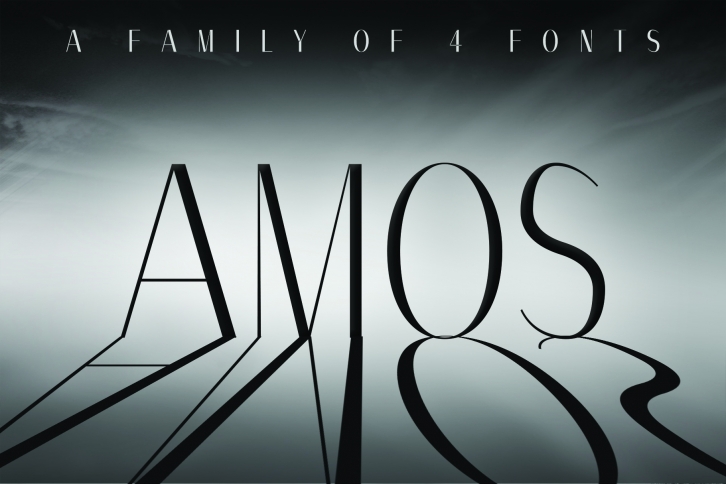
AMOS, A Modern Sans Serif is a beautiful font that was designed by Dene Studios. It's a great choice for designers and creatives who need such a font. It was released on June 18, 2019 and the file size is 8.73 MB. AMOS, A Modern Sans Serif may give a more youthful, expressive and casual look to your project. It is a very beautiful, refined, elegant, and high-quality font.